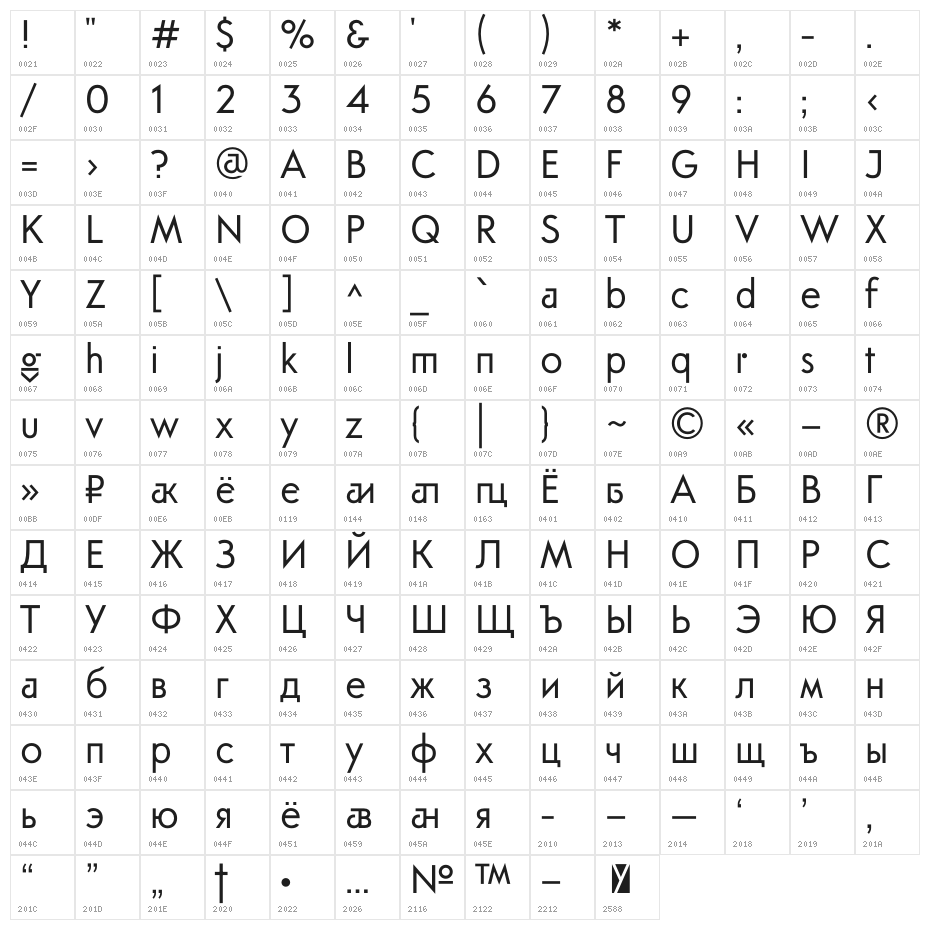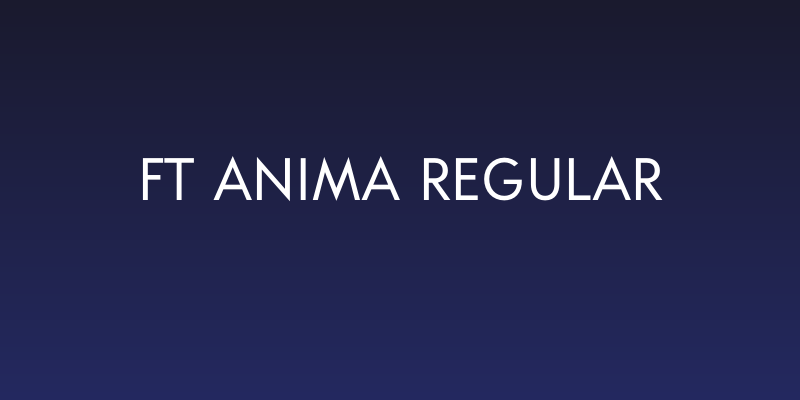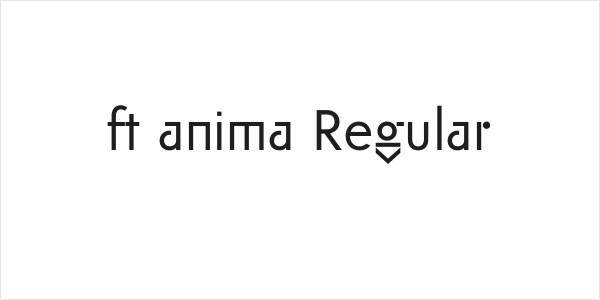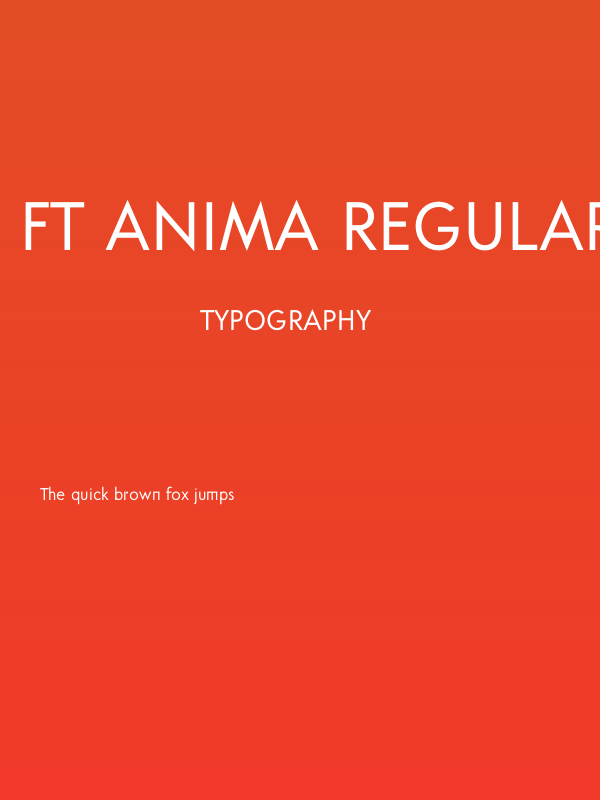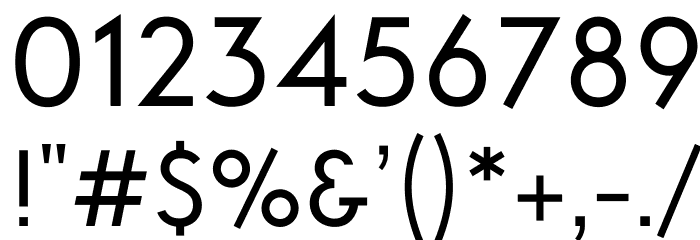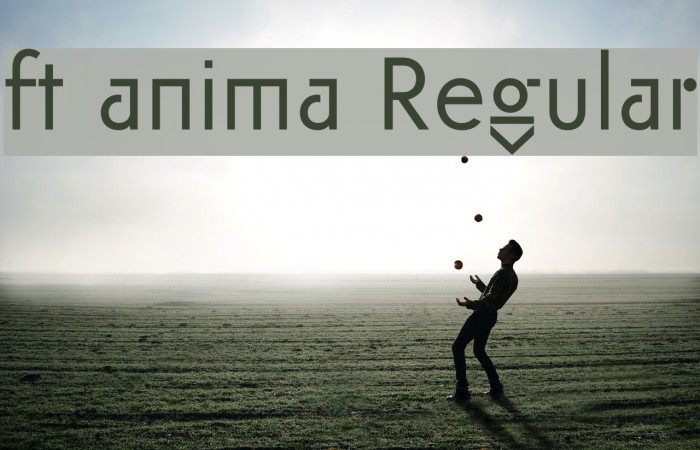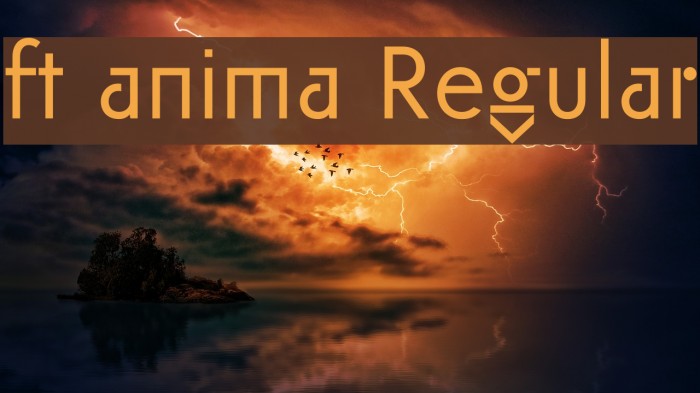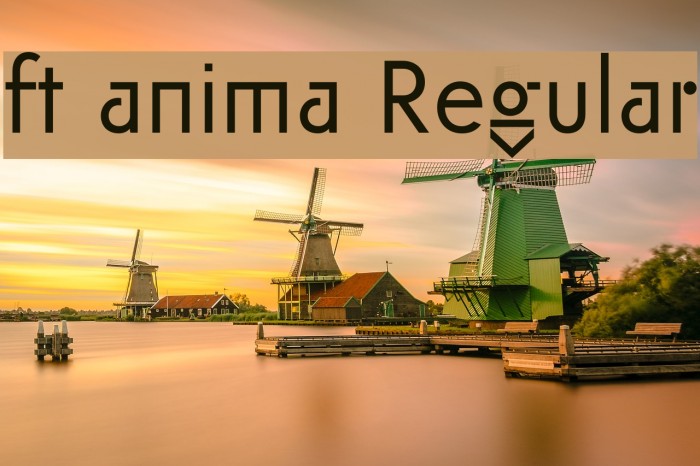
ft anima Regular Font
ft anima Regular Description
This font exhibits a clean and modern sans-serif style, characterized by its geometric shapes and uniform stroke widths. The uppercase letters are bold and well-defined, providing a strong presence, while the lowercase letters maintain a consistent and balanced appearance. The numerals are clear and easily distinguishable, making them suitable for various applications. Special characters are included, offering versatility for different design needs. The overall design is minimalistic, emphasizing readability and simplicity.
Igor Kosinsky - www.behance.net/Pj154
| Proposed Projects | Ideal for branding, advertising, web design, and editorial projects where clarity and modernity are essential. |